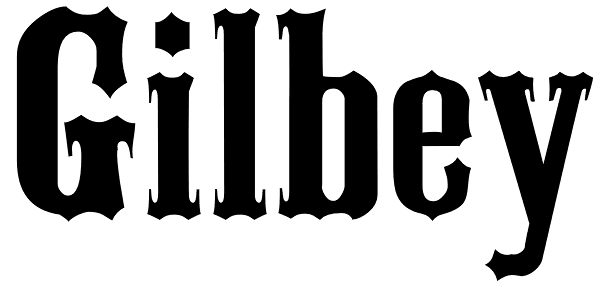
Gilbey
Although wood types are found throughout the world, most of the decorative one originated in the United States. This one would work well on theatrical playbills, and advertising for tourist railroads, wild west shows and concerts in the park.